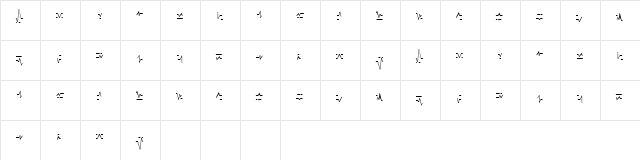
Alien Plain
Design Context for Alien Typeface
Alien is a composed and adaptable typeface that performs quietly and consistently across a wide range of design contexts.